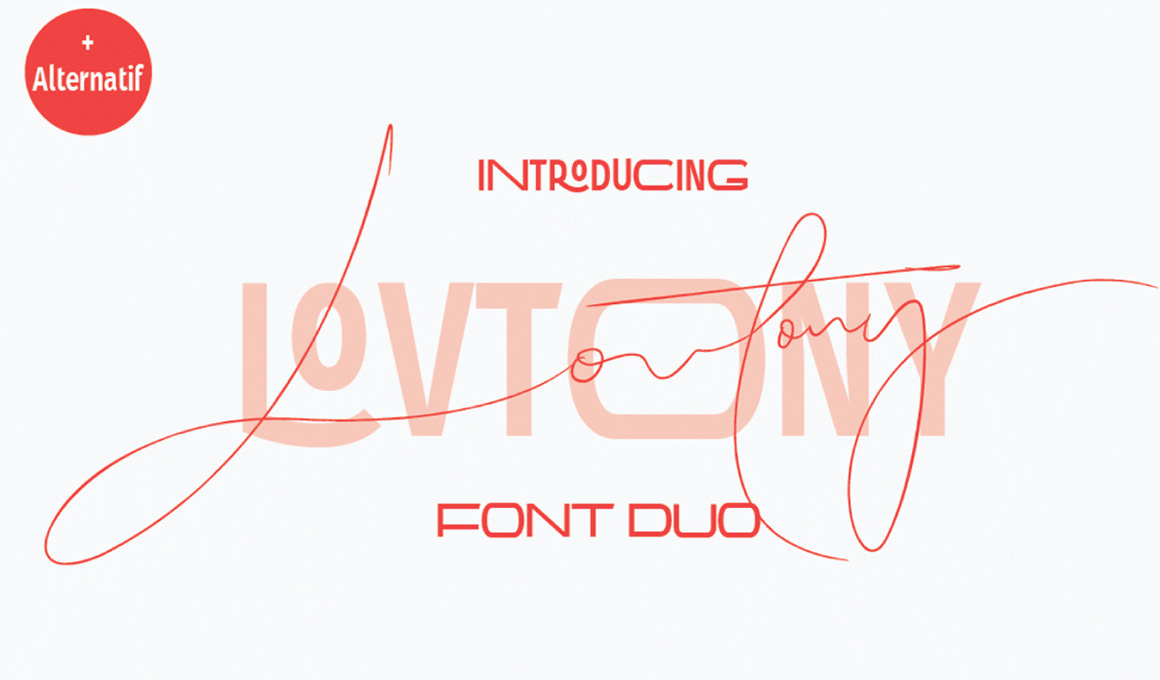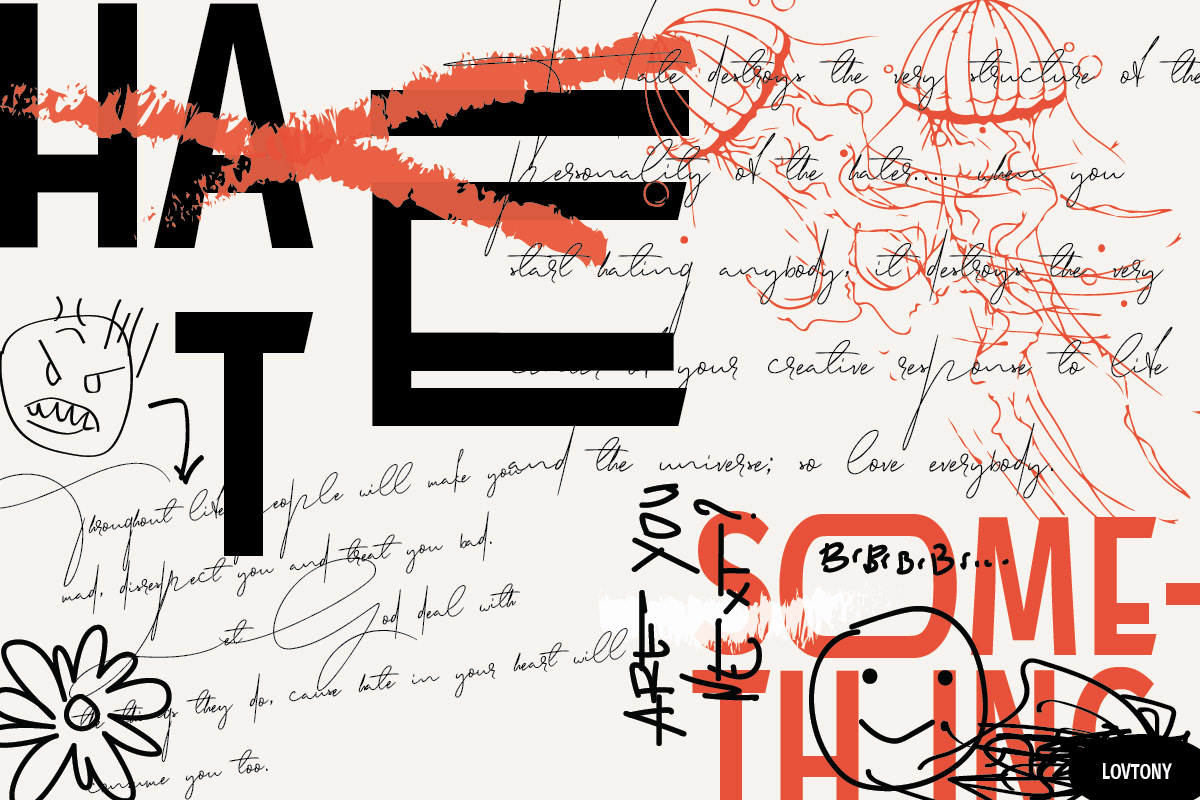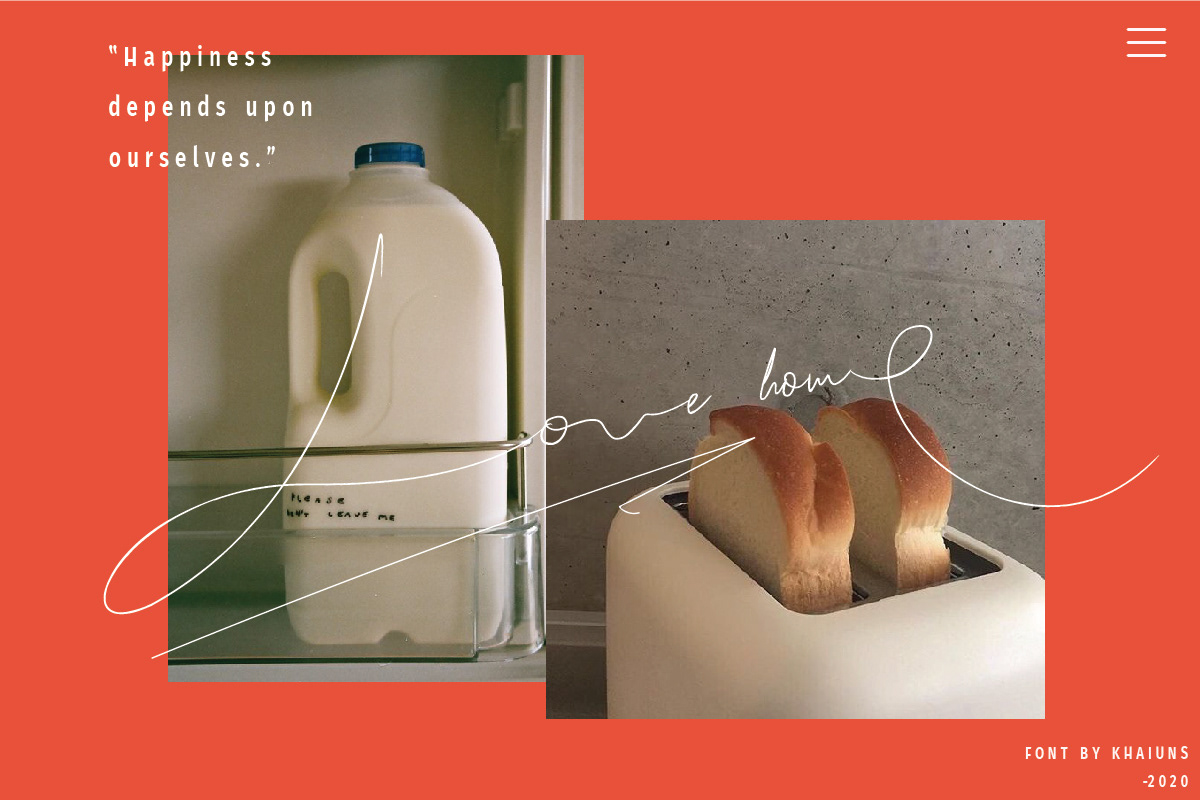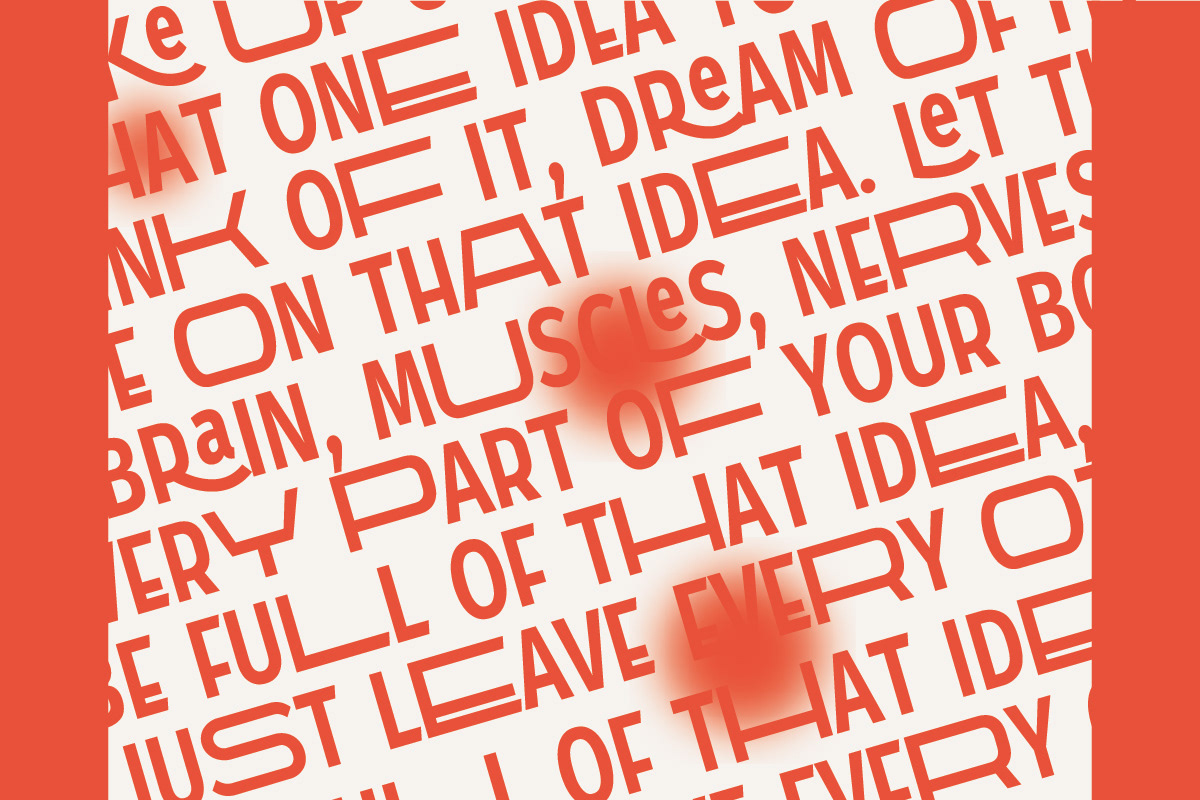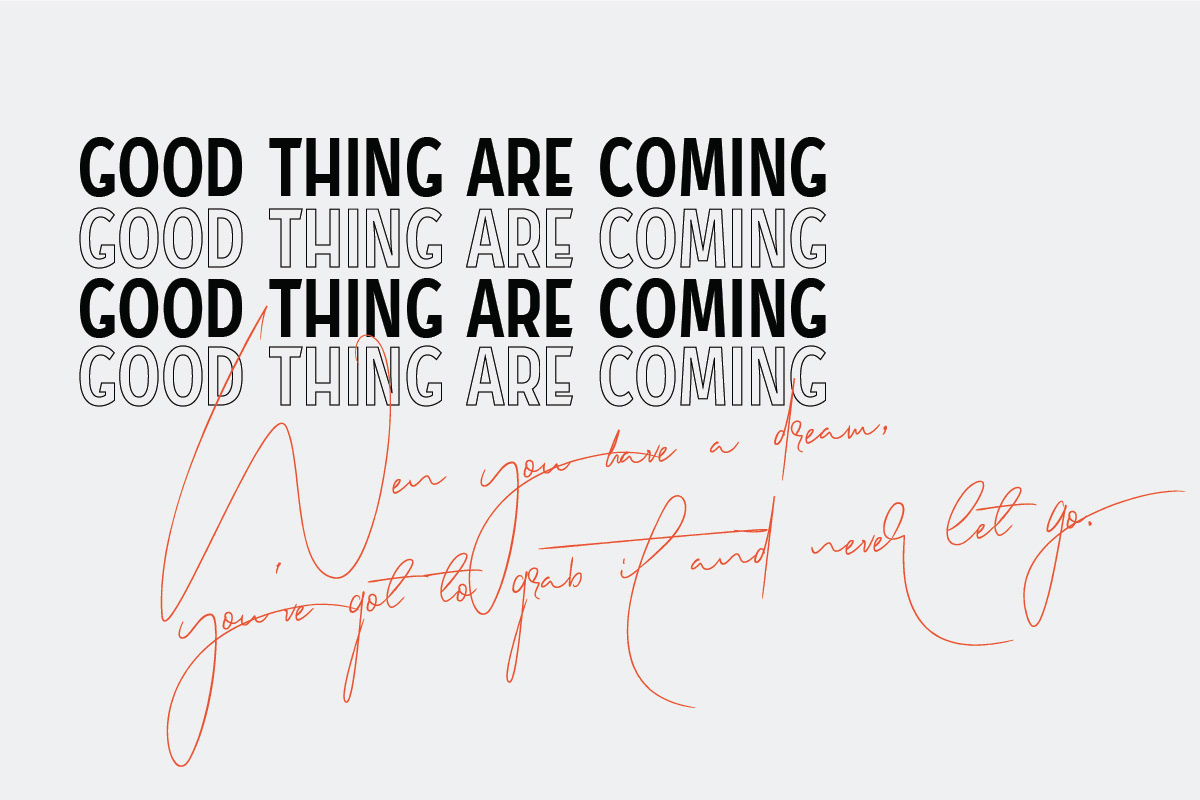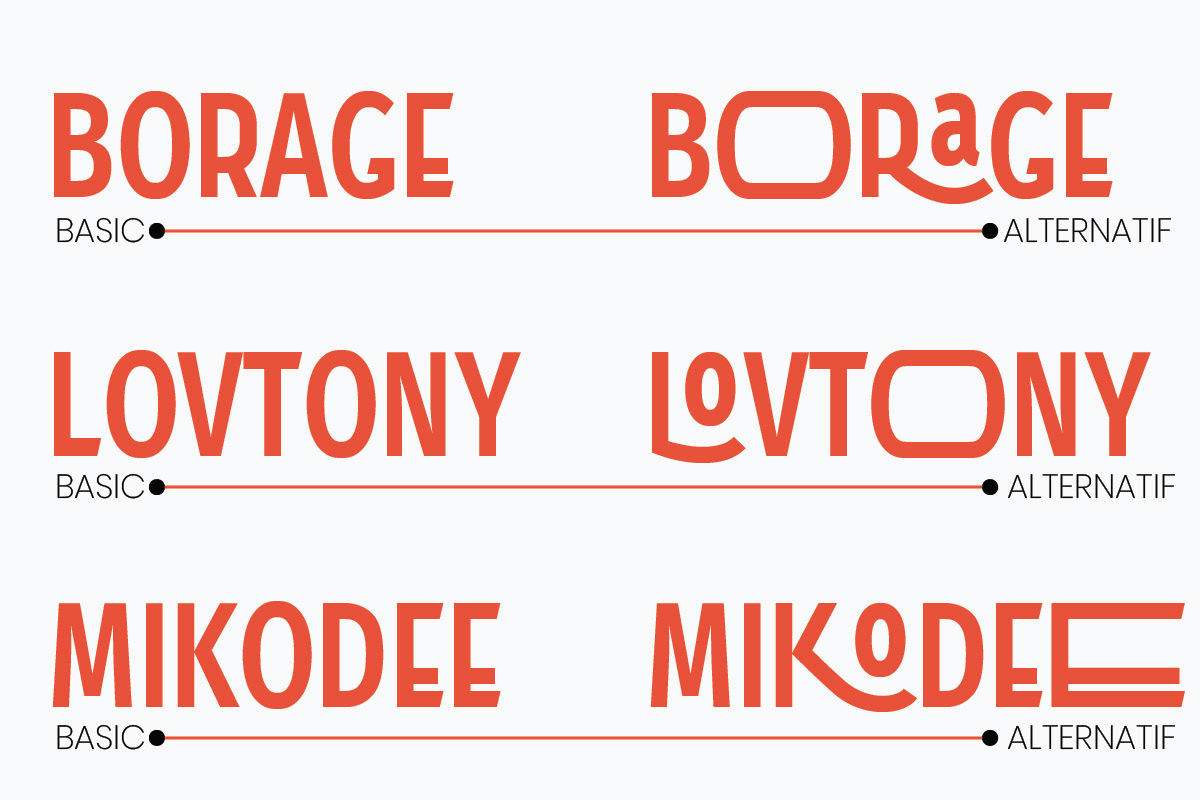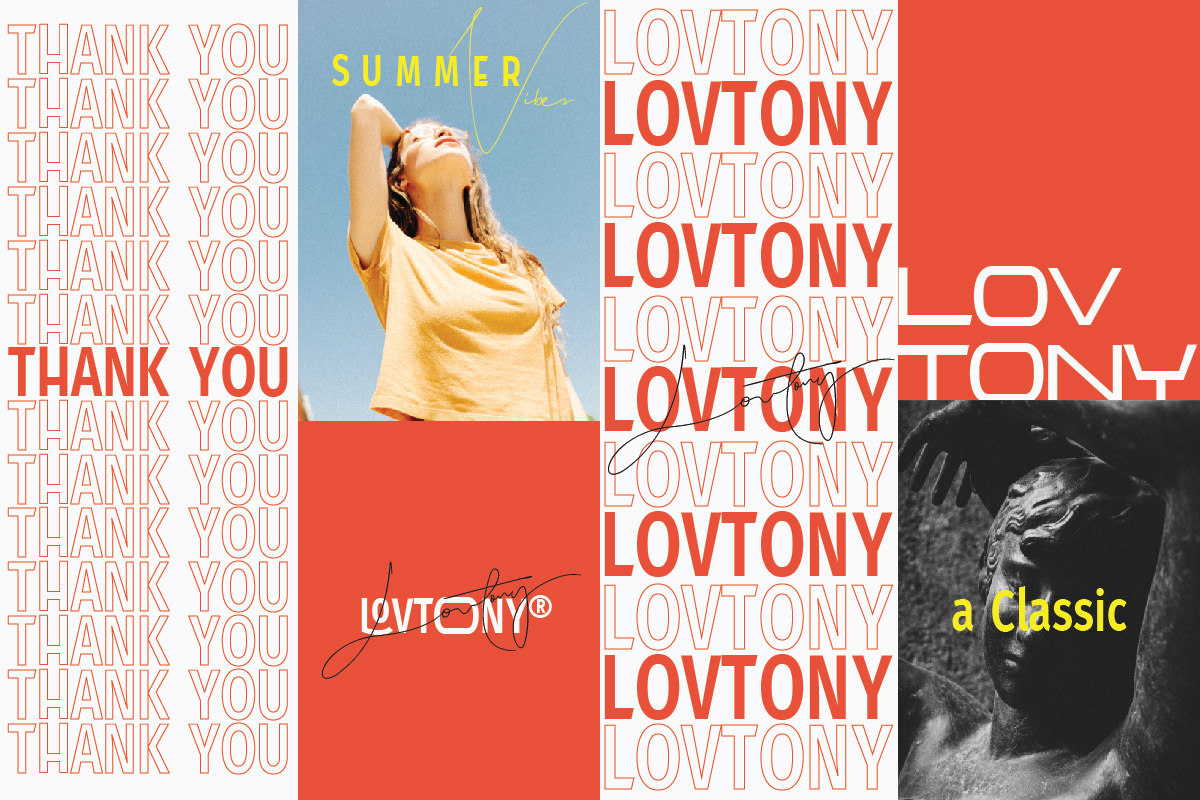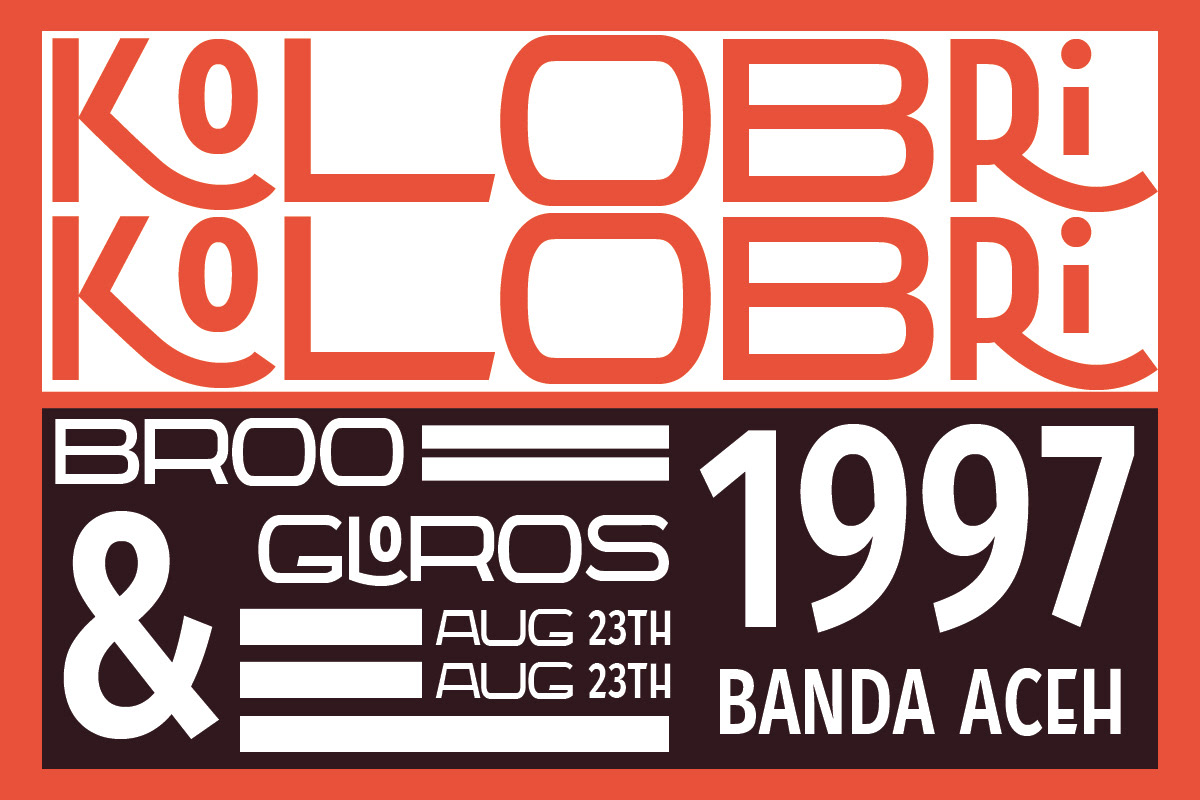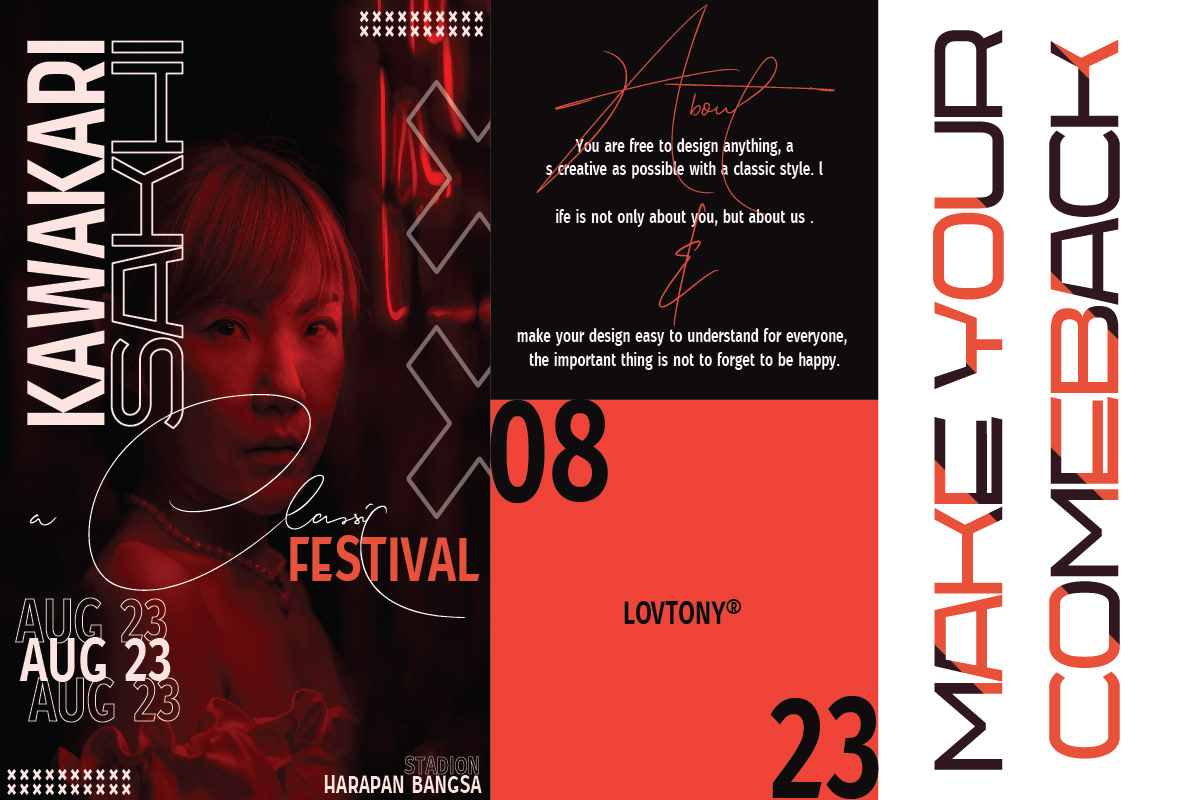
Lovtony Font Duo – Modern Sans Serif
A great font/script for creating beautiful logos, posters, wedding invitations, blog posts, social media, and more!
Lovtony Font Duo is a pair of modern sans serif and classy handwritten script with LOTS of ligatures that carefully created to fit on each other.
A great font/script for creating beautiful logos, posters, wedding invitations, blog posts, social media, and more! Indulge yourself in a luxurious typography pairing with Lovtony – a classic font duo consisting of an elegant Script & Sans Serif.